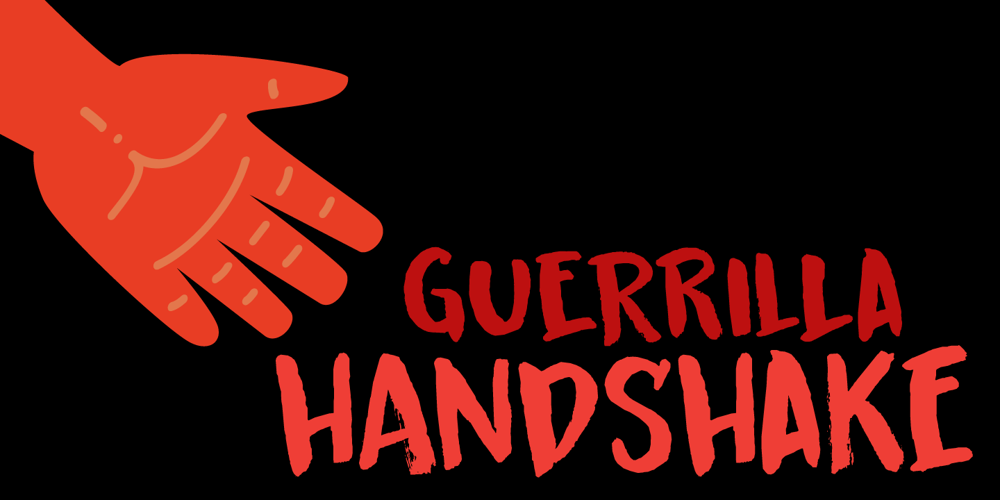
Guerrilla Handshake
Guerrilla Handshake font
Guerrilla Handshake Font Family was designed by David Kerkhoff and published by Hanoded. Guerrilla Handshake contains 2 styles and family package options. Shaking hands is quite a complicated process: do it too lightly and you appear weak, grab too hard and you’re too eager. There are also those with a ‘Guerrilla Handshake’ – grabbing your hand unexpectedly, shaking it vigorously and yanking it toward them. Guerrilla Handshake font was actually made by hand, using Chinese ink and a brush. I did use the brush vigorously, but I made sure not to shake or yank it too much! Guerrilla Handshake comes in a slightly backslanted ‘regular’ version and an italic version.